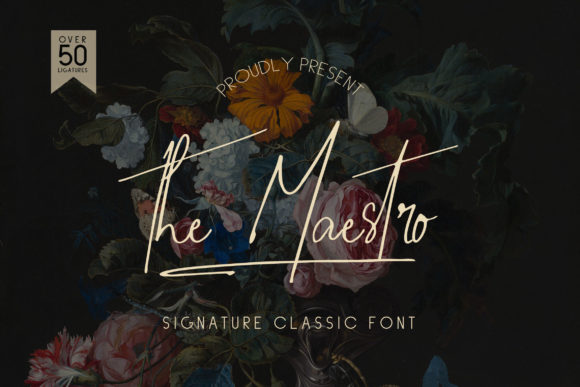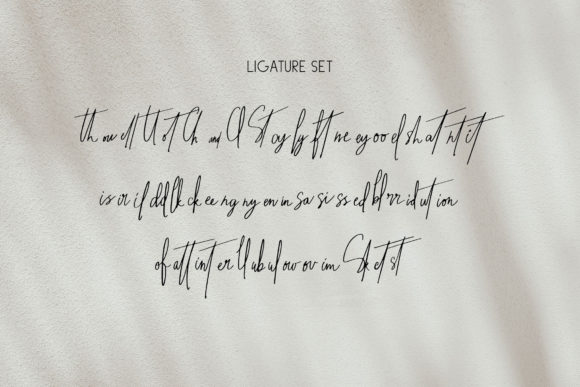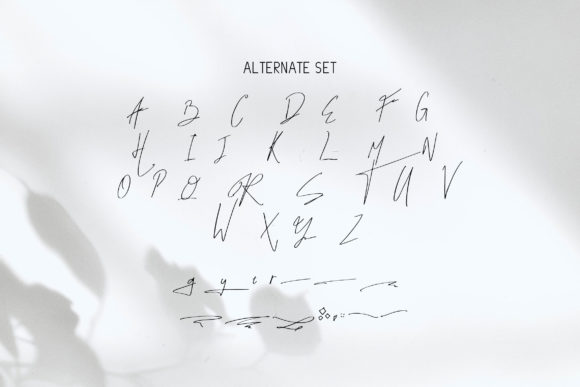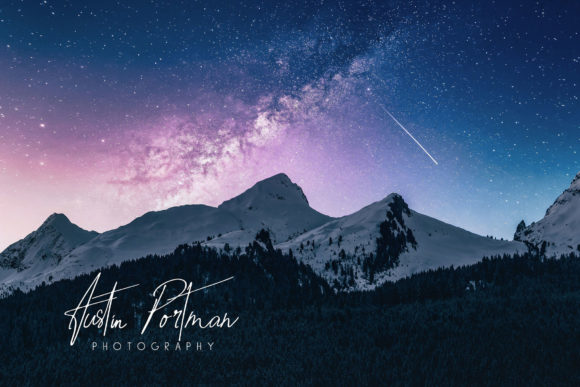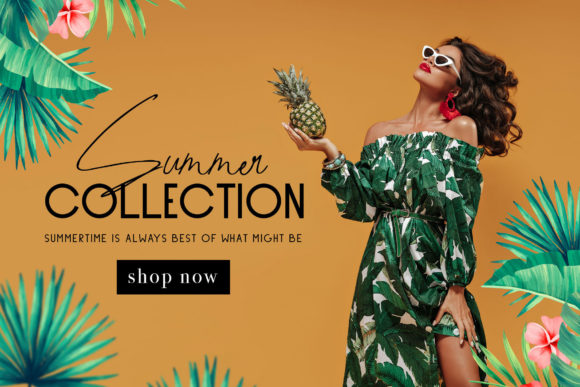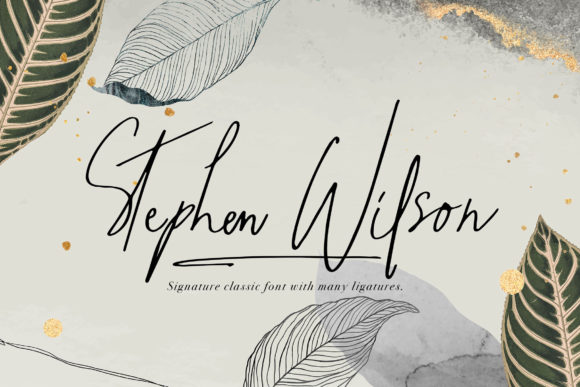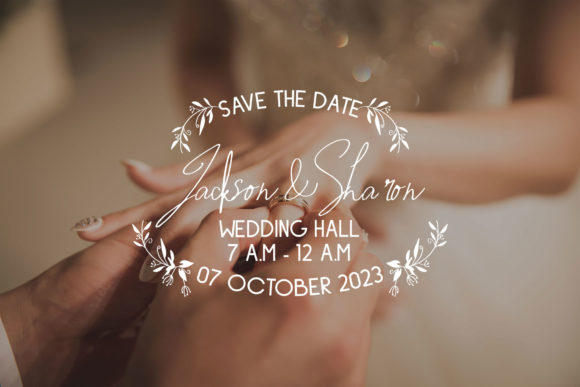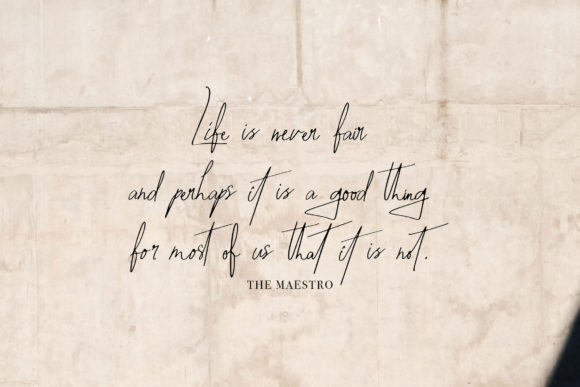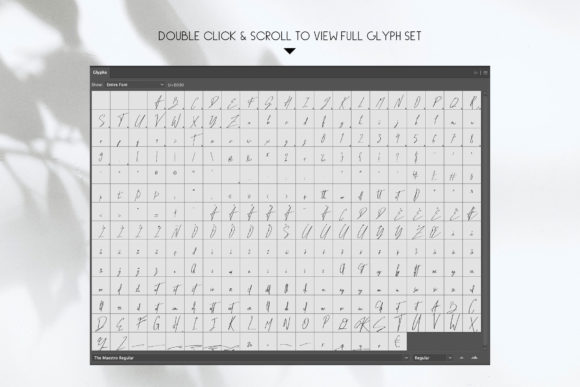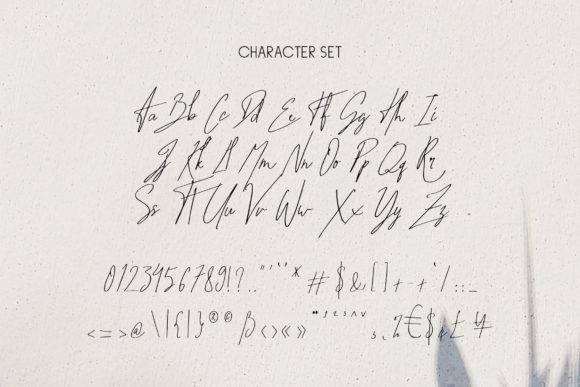
The Maestro Font
About The Maestro Font
Introducing “The Maestro,” a mesmerizing script font meticulously crafted to exude elegance and enchantment. Whether you’re searching for fonts to enhance your Instagram presence or seeking calligraphy scripts for your DIY projects, The Maestro possesses the transformative power to elevate any creative concept into a masterpiece.
This font embodies a timeless allure, blending classic sophistication with a touch of mystique, making it ideal for a diverse array of design endeavors. Its graceful strokes and intricate flourishes imbue each letter with a sense of magic, adding a captivating charm to any text.
With The Maestro, your words dance across the page, infused with an enchanting aura that captivates the imagination. Whether used for branding, invitations, or digital content, this font imbues your creations with a sense of artistry and wonder.
Crafted with meticulous attention to detail, The Maestro ensures both style and readability, ensuring that your message shines through clearly. Its fluid lines and balanced proportions make it suitable for a range of applications, from digital graphics to printed materials.
In conclusion, The Maestro is more than just a font; it’s a magical tool that empowers you to bring your creative visions to life with elegance and charm. Whether you’re a seasoned designer or a DIY enthusiast, The Maestro is sure to inspire and delight, turning every project into a true work of art.